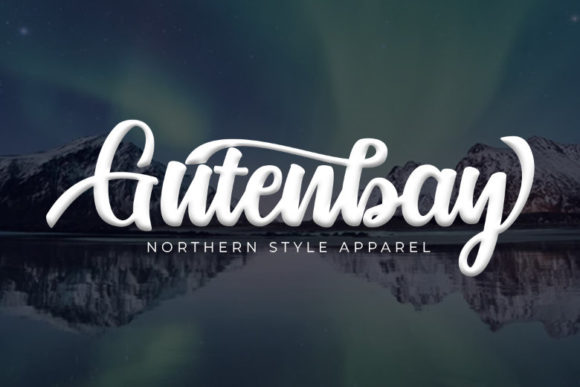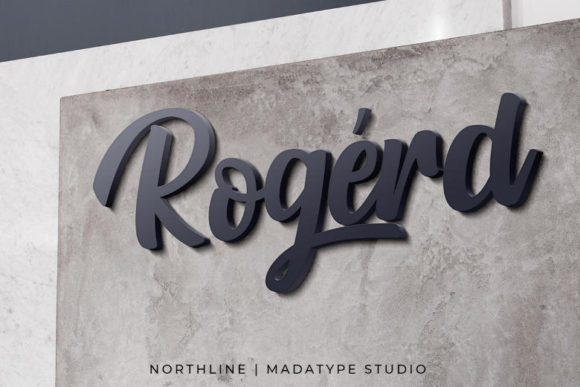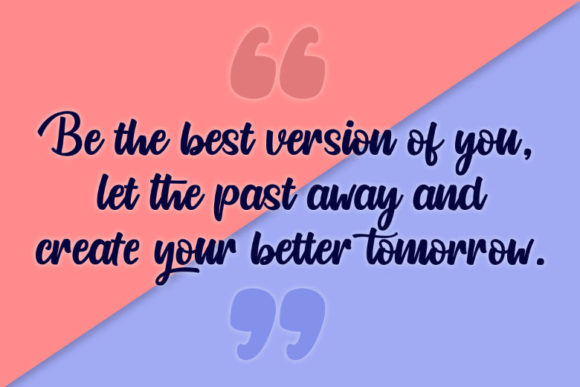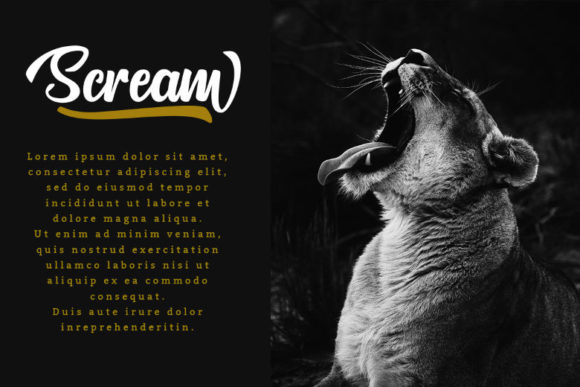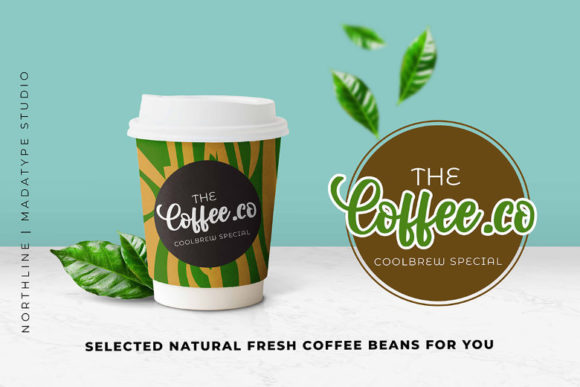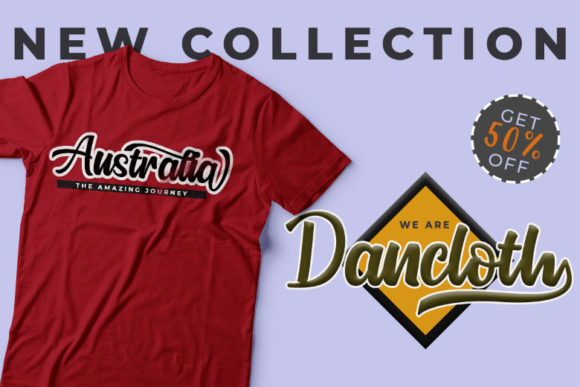
Introduction to Northline Font
Remember that moment when you’re brainstorming ideas for a creative project and you need that perfect font to bring it all together? For many designers, that moment of inspiration can make all the difference between a mediocre design and a truly stunning one. And that’s exactly what the Northline Font is all about – adding a touch of magic to your design projects with its dynamic and energetic style.
Whether you’re working on a t-shirt design, creating a logo, or crafting a beautiful letterhead, the Northline Font is an invaluable resource that can elevate your design to the next level. With its PUA encoded feature, you can access all of the glyphs and swashes with ease, giving you the freedom to experiment and push the boundaries of your creativity.
Key Features of Northline Font
- High-quality design resource with a unique, modern aesthetic, perfect for creative projects.
- Comes in a range of sizes, from 12pt to 72pt, making it versatile for various design applications.
- Features a transparent background, allowing for seamless integration into any design or creative project.
- Designed to be highly legible, even at small font sizes, making it ideal for use in digital design and print media.
- Resolution-independent, ensuring it looks great at any resolution or screen size.
- Part of a larger collection of fonts, offering a wide range of styles and designs for creative professionals.
Honest Review: Northline Font
As a designer, I’ve had the chance to work with a variety of fonts for my creative projects, and I recently came across the Northline Font. I was excited to see how it would perform in my design work.
Here are some of the things that worked well for me:
- ✨ High quality design: The Northline Font has a clean and modern look that’s perfect for a variety of creative projects.
- ✨ Transparent background: This feature is really useful for creating custom designs with a transparent background, which can be a game-changer for many design projects.
- ⚠️ Limited character set: The font only comes in a few styles, which may not be suitable for projects that require a wide range of characters.
- ⚠️ Not ideal for small text: The font is best used for larger text sizes, as it can become difficult to read at smaller sizes.
Overall, I think the Northline Font is a great addition to any designer’s toolkit, especially for free design resources. With a little creativity, it can be used to create some really amazing designs. However, it’s worth keeping its limitations in mind when choosing a font for your project.
Using Northline Font in PowerPoint/Word
Northline Font is also compatible with PowerPoint and Word, making it a great choice for presentations and documents. Simply select the font and apply it to your text to add a touch of sophistication.
Tips for Getting the Most Out of Northline Font
To get the most out of Northline Font, experiment with different font sizes, colors, and combinations to create unique and eye-catching designs. This font is perfect for creative projects, so don’t be afraid to push its limits.
Northline Font is ideal for a variety of creative projects, including logos, brochures, posters, and social media graphics. Its high-quality design and transparent background make it a versatile resource for designers and non-designers alike.